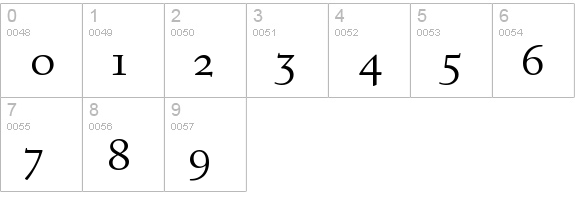
FiguralSmallCapsPlain Font Details
The Figural Small Caps Plain font is a unique and elegant typeface that combines classic small caps with a modern twist. Its sleek and sophisticated design makes it perfect for adding a touch of sophistication to any project. The Figural Small Caps Plain font is versatile and can be used for a variety of purposes, from branding to editorial design. Best of all, this font is available for free download at FontsMarket.com. Whether you're working on a personal project or a client's design, the Figural Small Caps Plain font is a great addition to your font library. Don't miss out on the opportunity to enhance your designs with this stylish and timeless font. Download it now and start creating beautiful typographic compositions today!